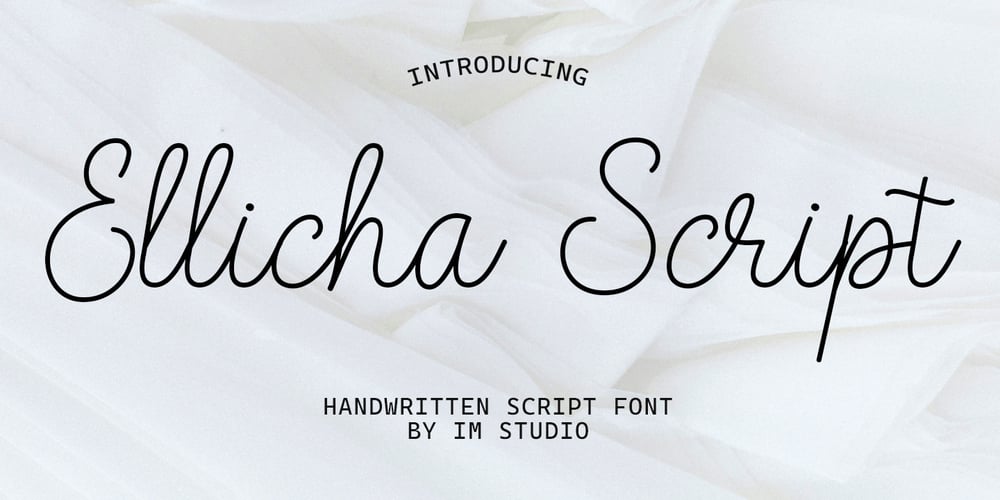
Ellicha Script
Ellicha Script font
Ellicha Script Font Family was designed by Ikhsan Maulana and published by IM Studio. Ellicha Script contains 1 styles and family package options. Ellicha Script is a beautiful handwritten brush script font that features elegant tails at the start and end of each letter. This font is Perfect for posters, Logotypes, album covers, signatures, invitations and more. Enhance your designs with the Ellicha Script font and make a powerful statement with typography that matches an elegant signature style.